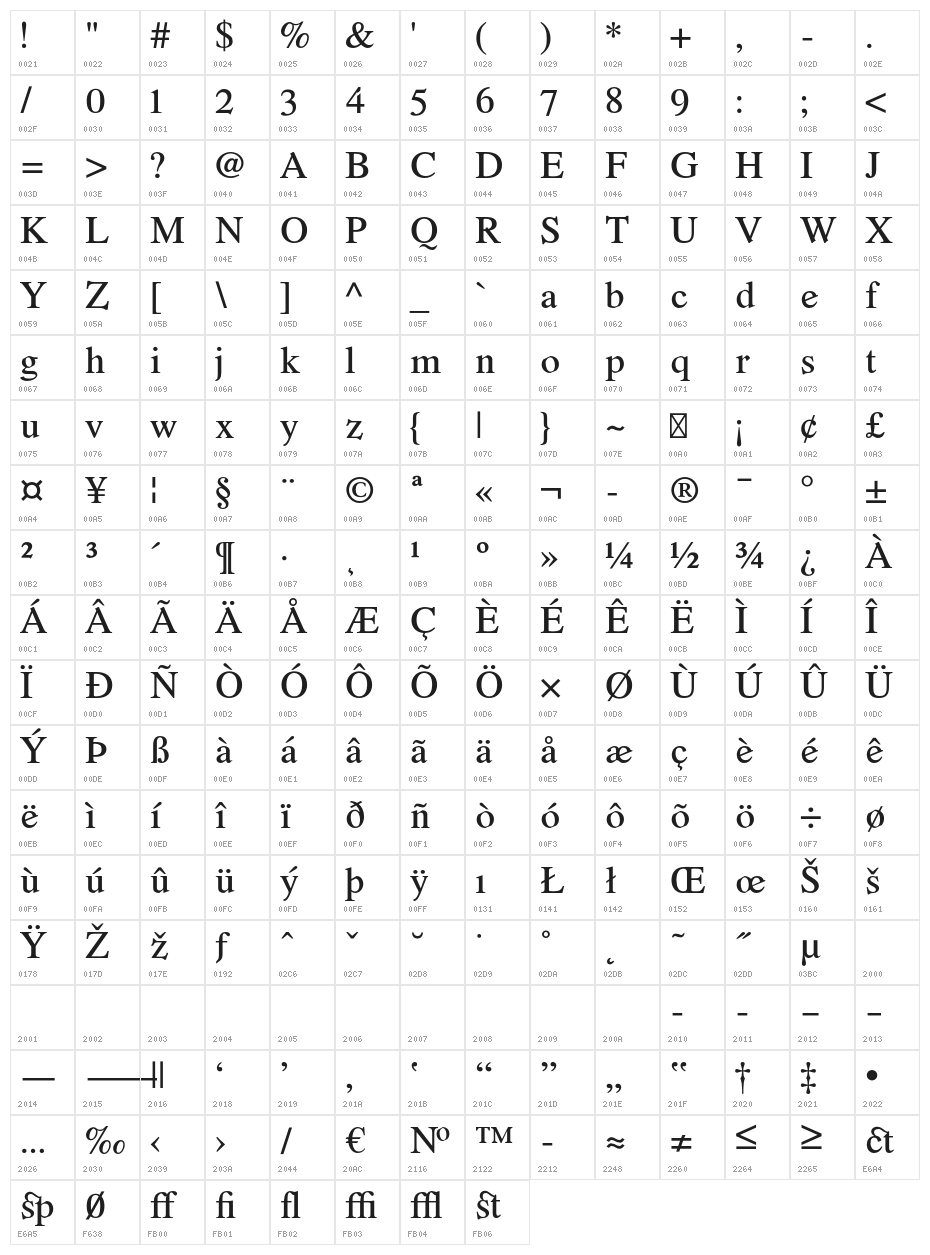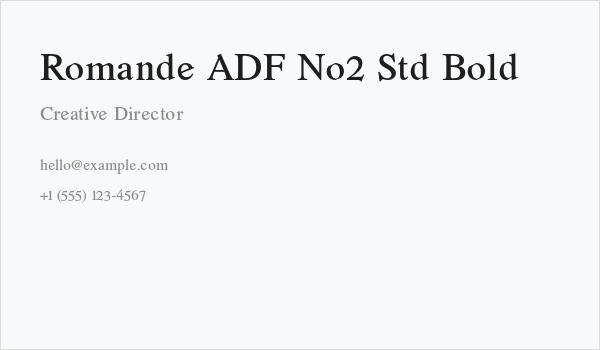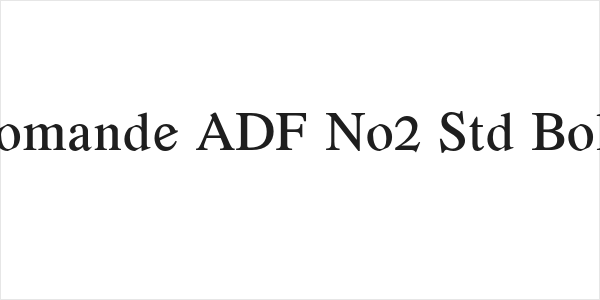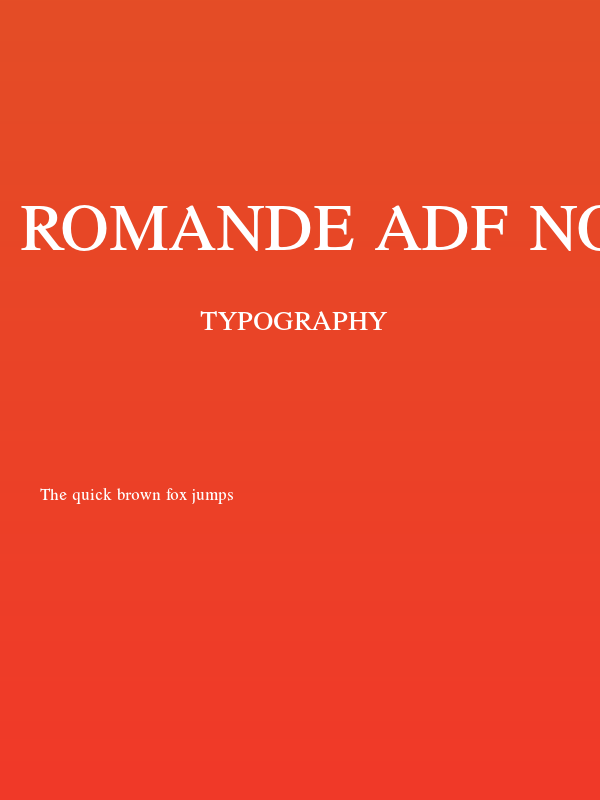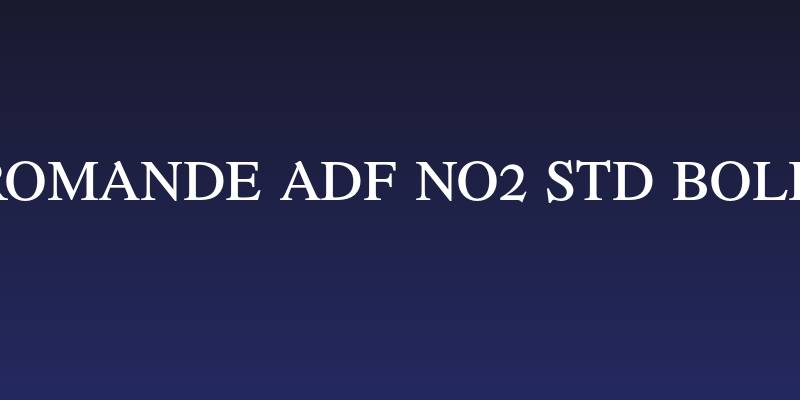
Romande ADF No2 Std Bold Font
Romande ADF No2 Std Bold Description
This font exhibits a classic serif style with strong, bold strokes that convey a sense of tradition and authority. The uppercase letters are well-proportioned, with a slight contrast between thick and thin strokes, enhancing readability and elegance. The lowercase letters maintain a consistent style, with rounded edges and a smooth flow that complements the uppercase set. Numerals are clear and distinct, making them suitable for both display and text settings. Special characters are crafted with precision, ensuring they integrate seamlessly with the overall design. This font is versatile, suitable for a range of applications from formal documents to creative projects.
| Proposed Projects | Ideal for book covers, editorial design, formal invitations, and branding materials. |